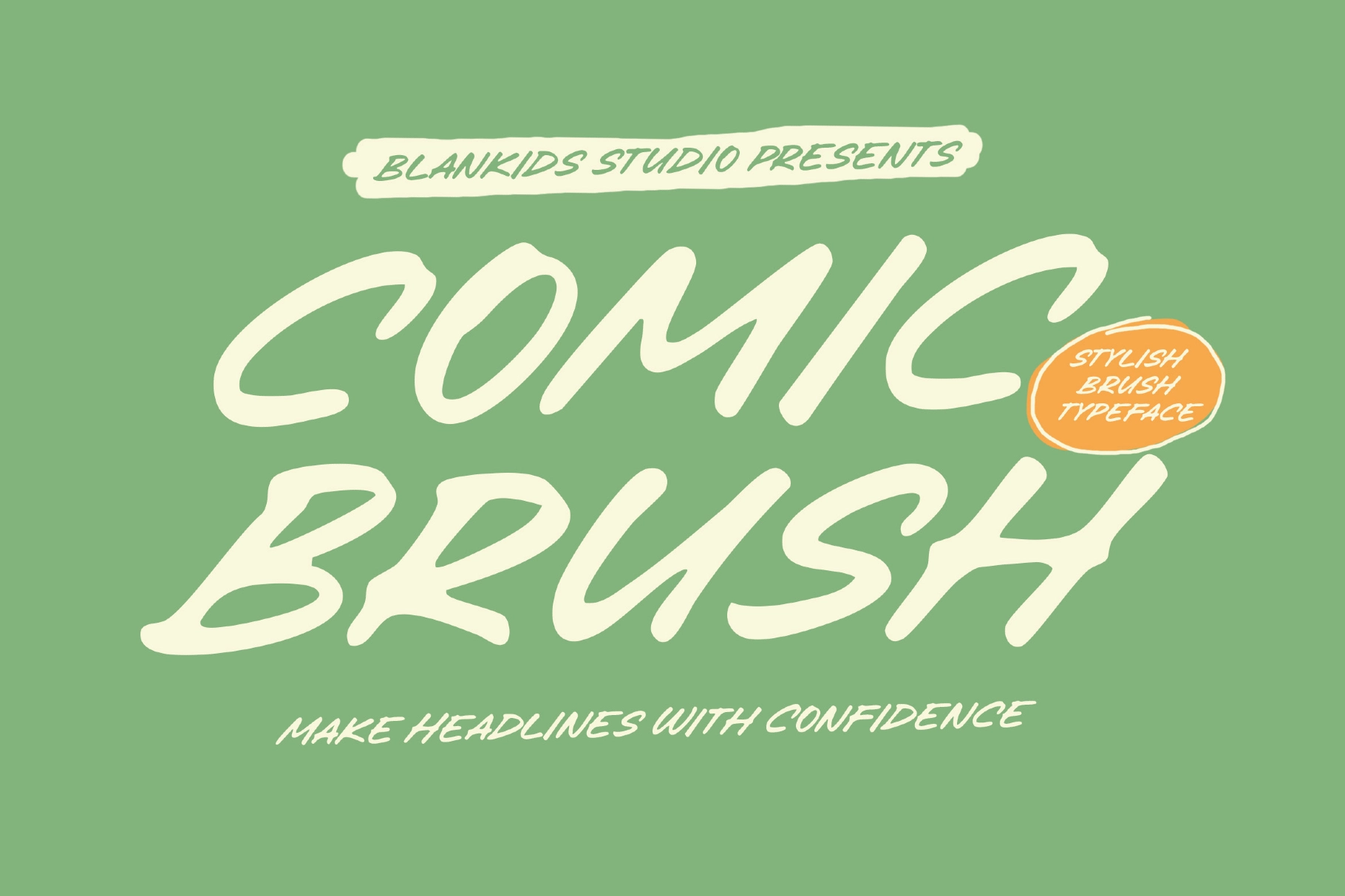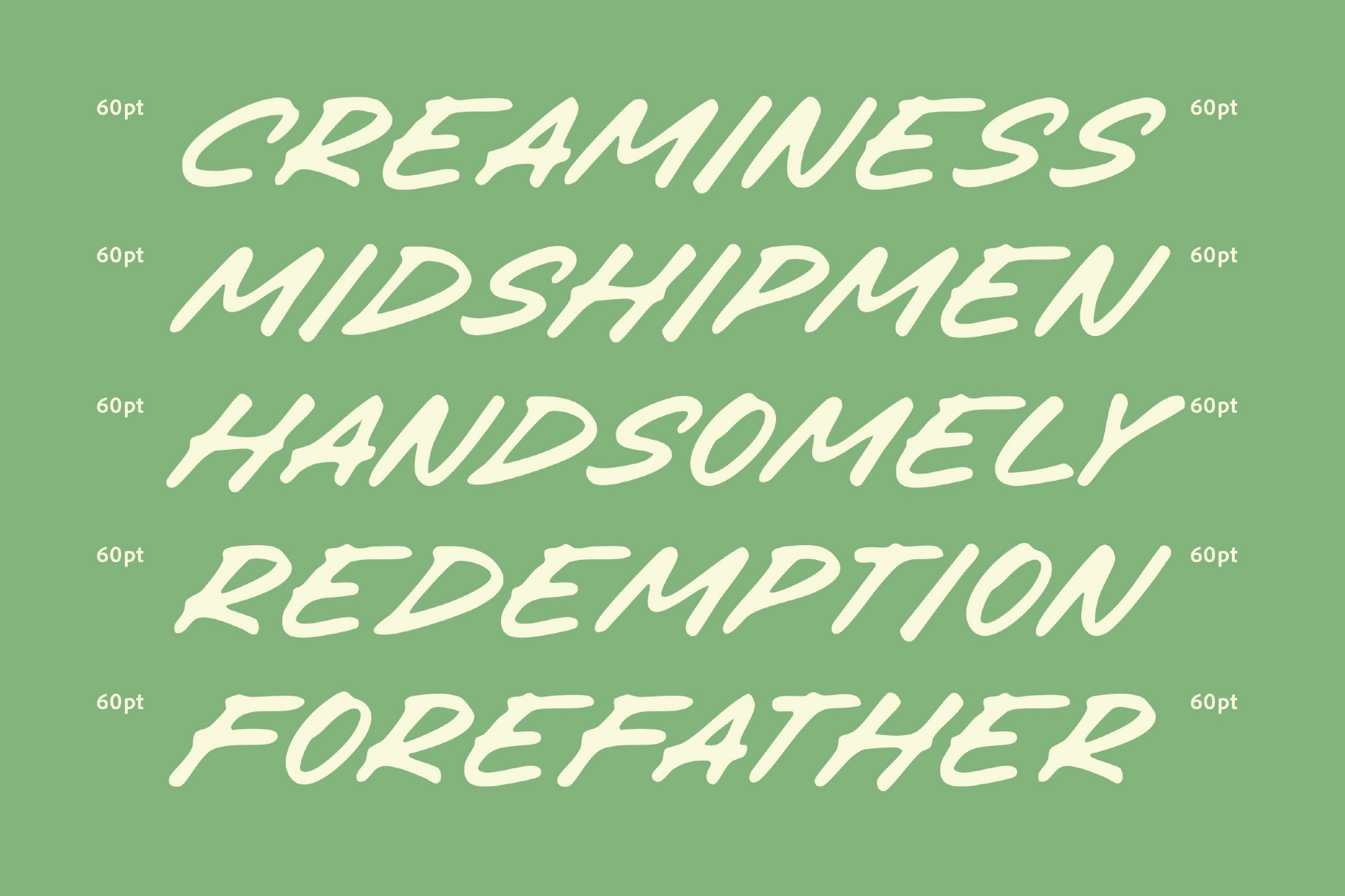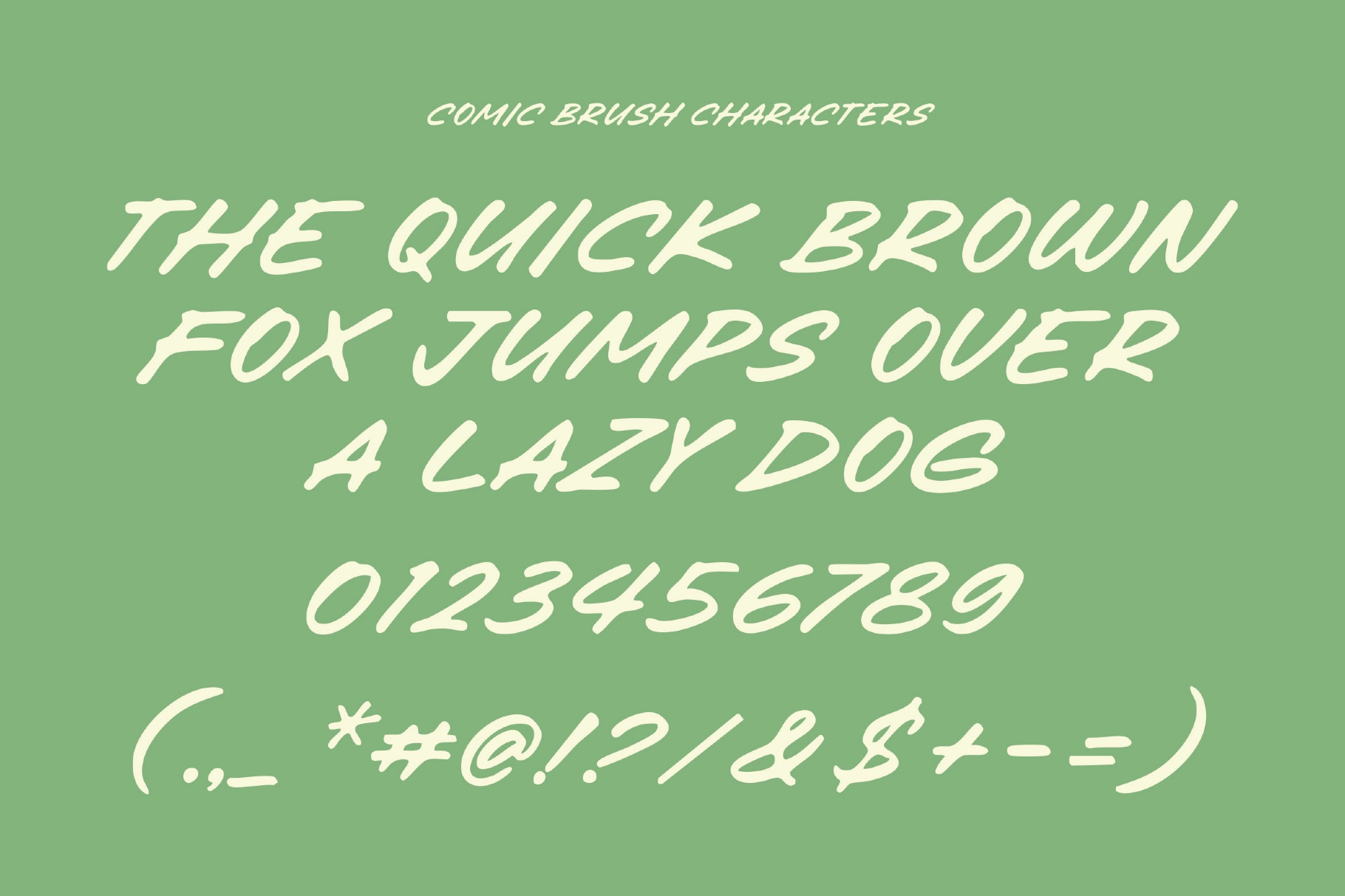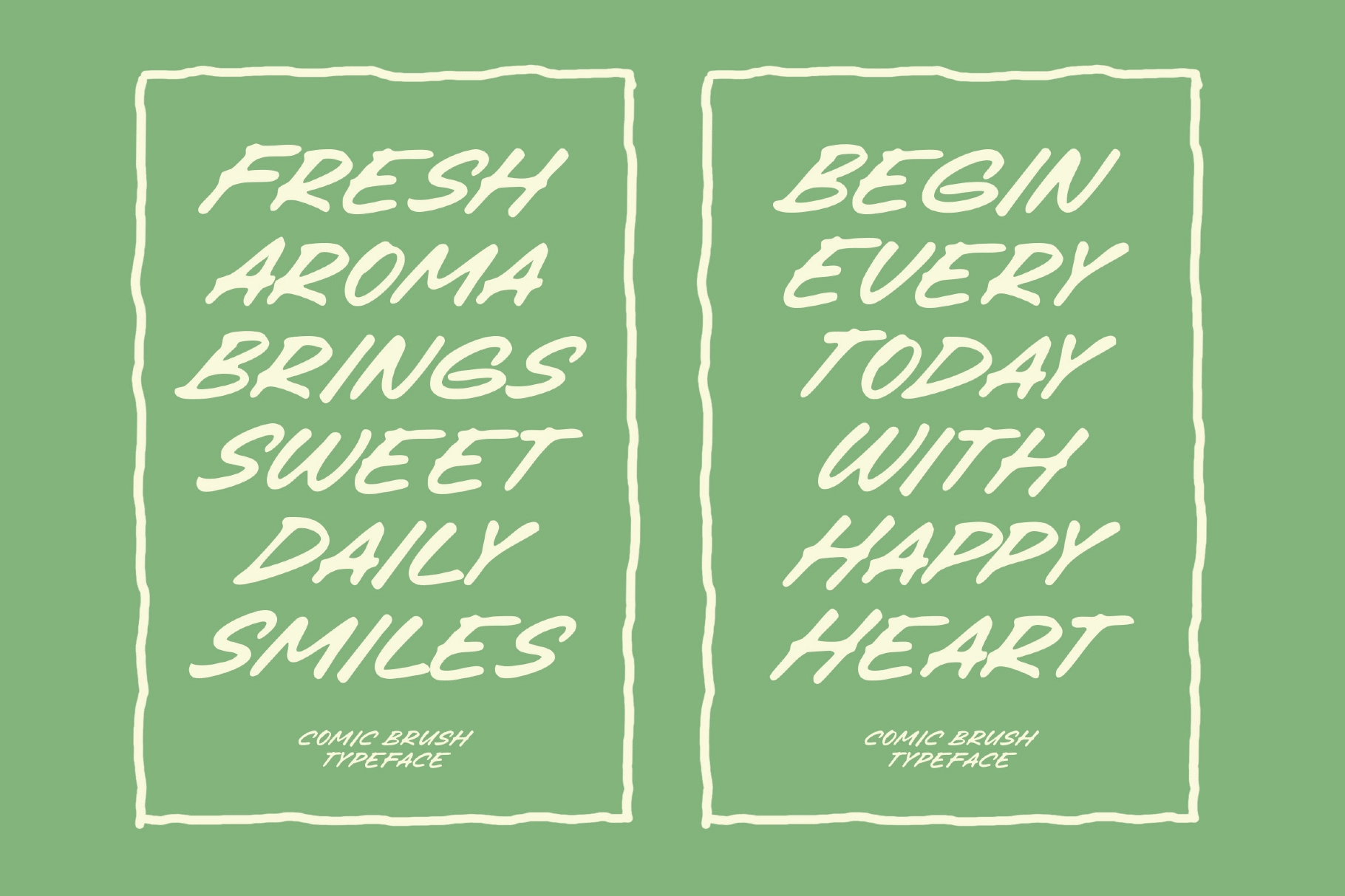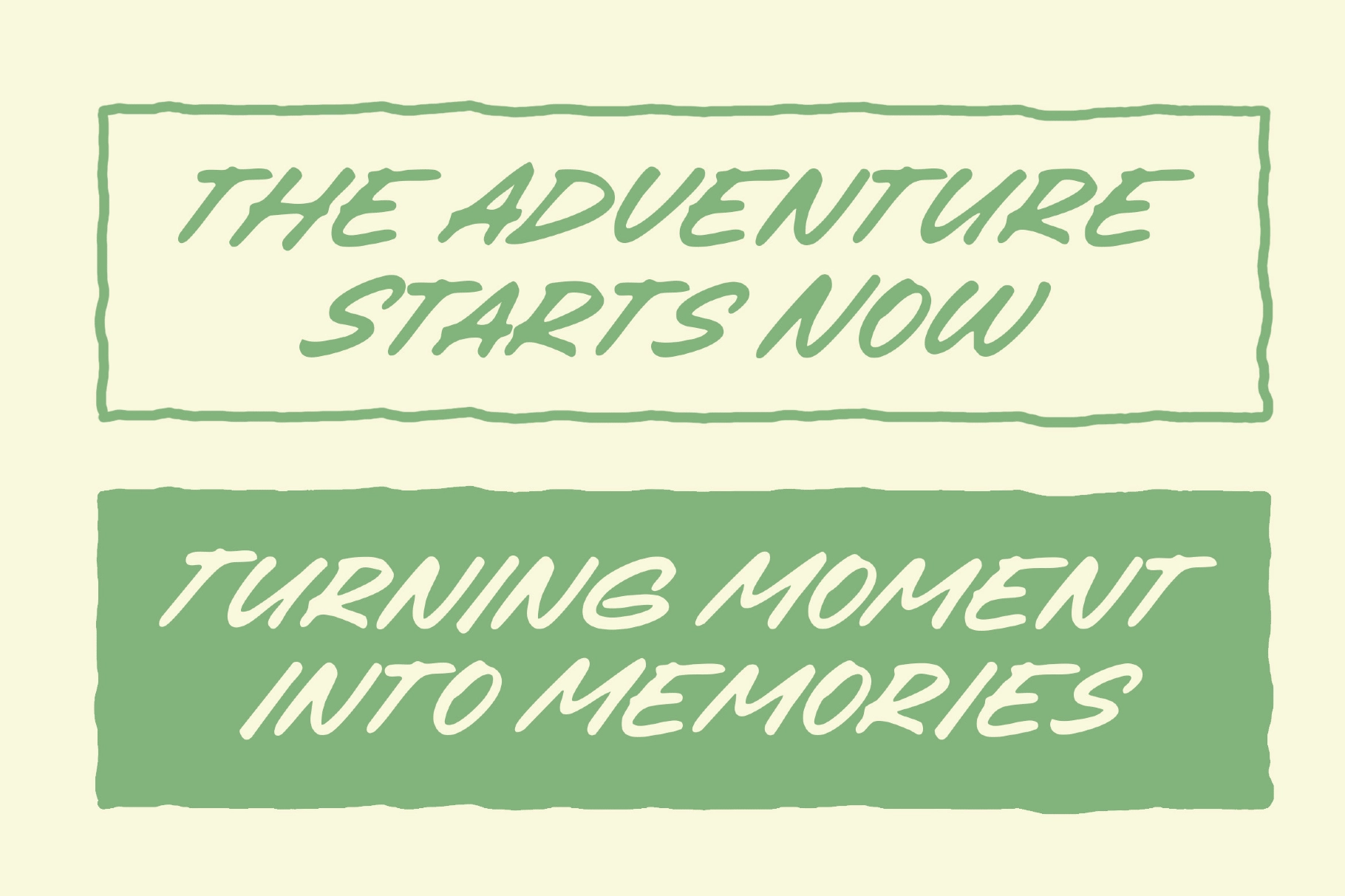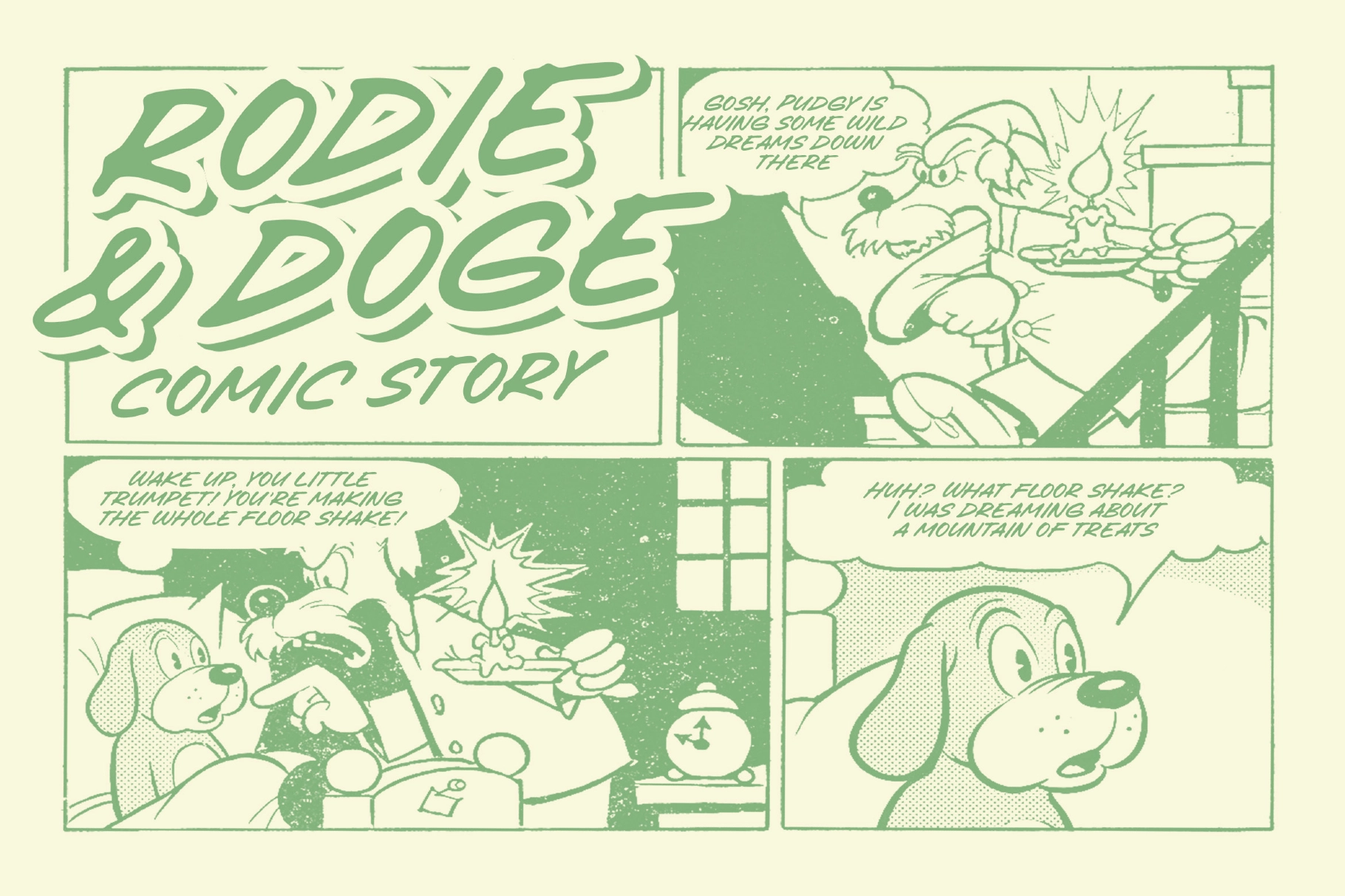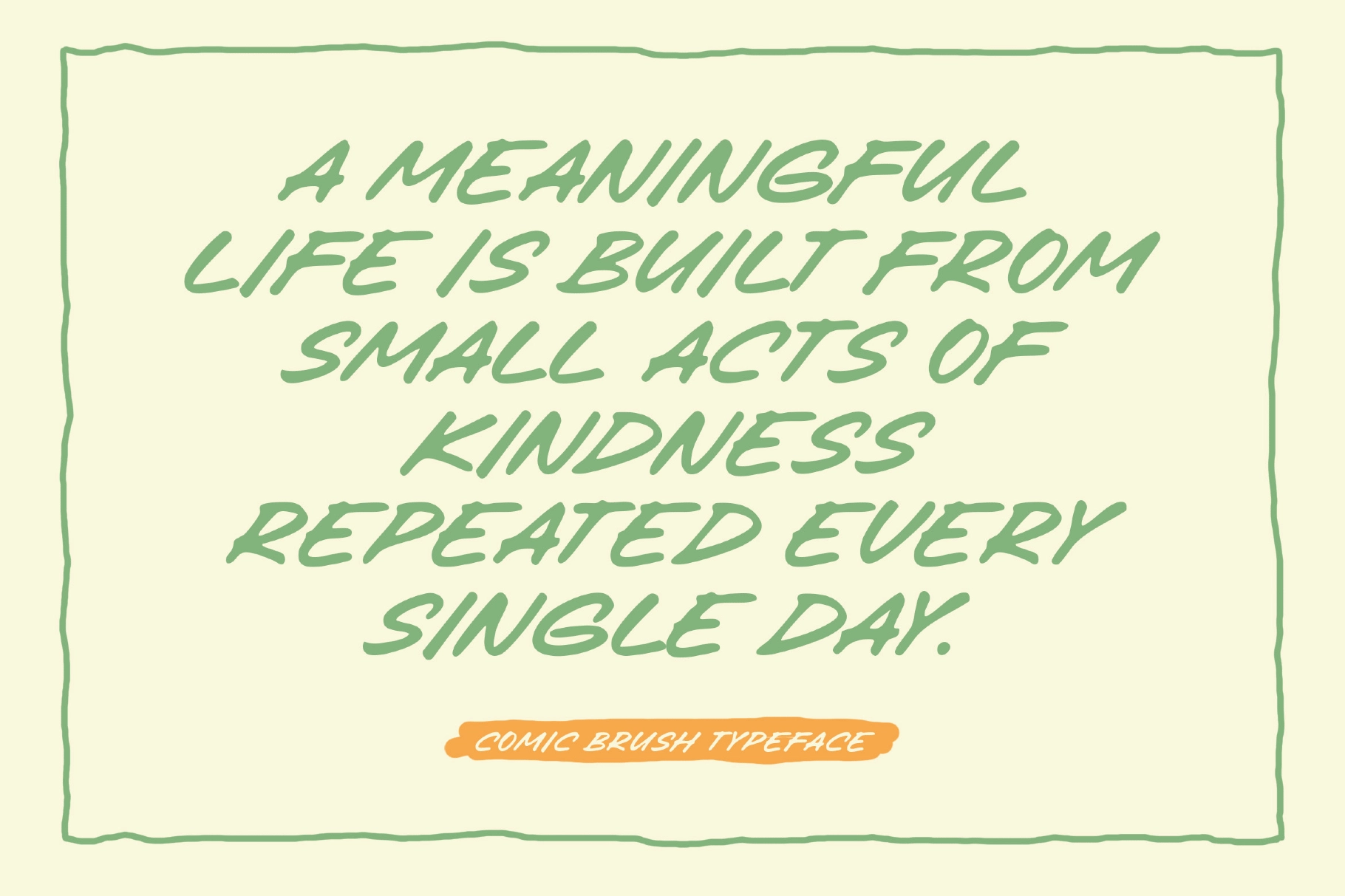
Comic Brush - Bold Marker Display Font
Comic Brush leans on thick, tapered marker strokes with a rough, slightly uneven edge — the kind of quick, confident mark a wide brush pen leaves on paper. Letters keep a loud, all-caps comic-book energy even from lowercase input, landing this as a bold cartoon display built for short, punchy headlines instead of body text.
There's no ligature or alternate-glyph system here — the whole personality comes from the letterforms and marker texture themselves. The character set covers a core Western European accented range, enough for everyday captions and titles. Use it for comic book titles, posters and flyers, logo design, packaging, product labels, sticker sheets, and social media graphics.
• Uppercase & lowercase;
• Numerals, punctuation & symbols;
• Kerning support;